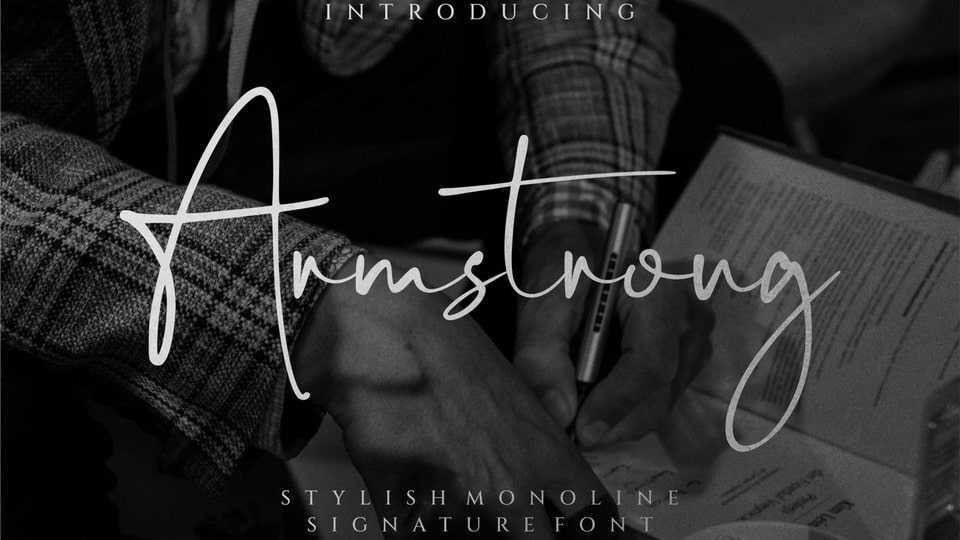
Download Armstrong font, a beautiful signature typeface for a variety of designs. Armstrong font can be used for products such as handcrafts, quotes, photography watermarks, logos and branding.
Designer: ToniStudio